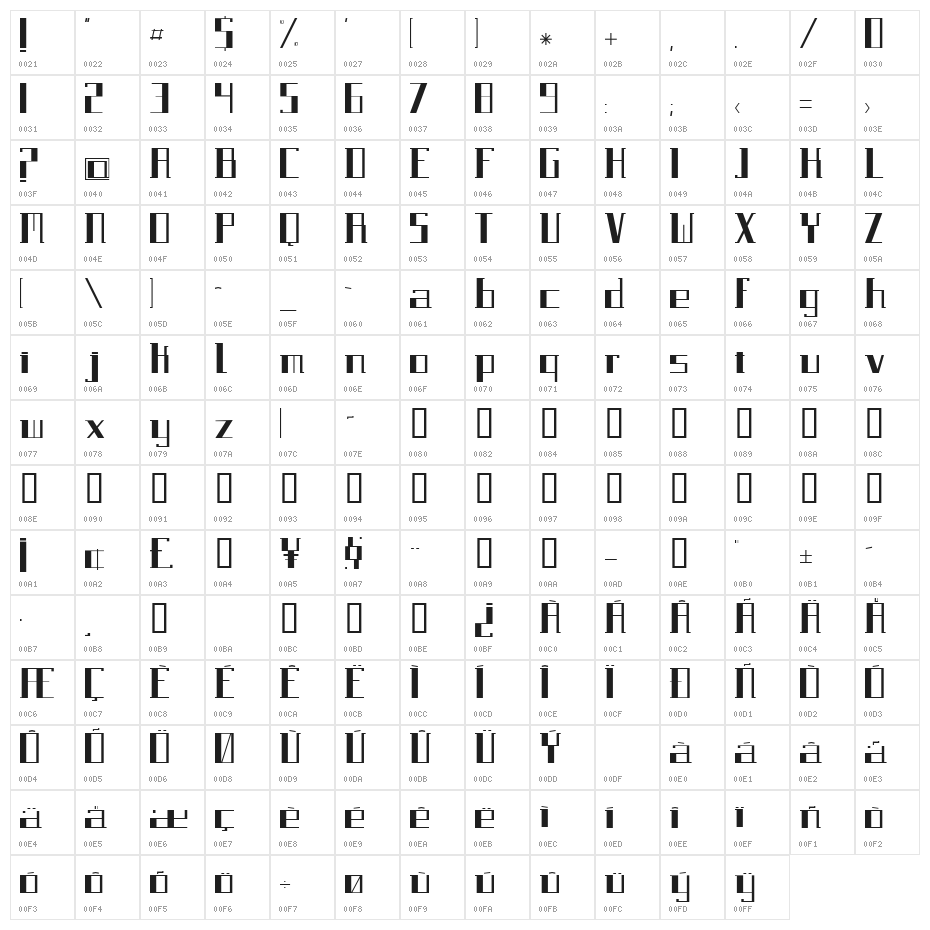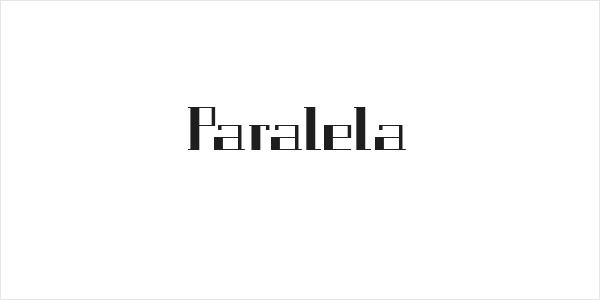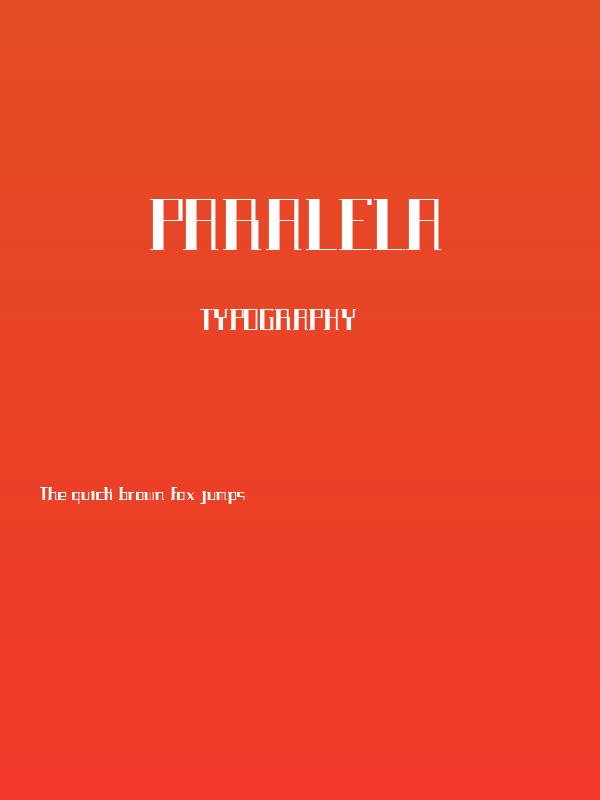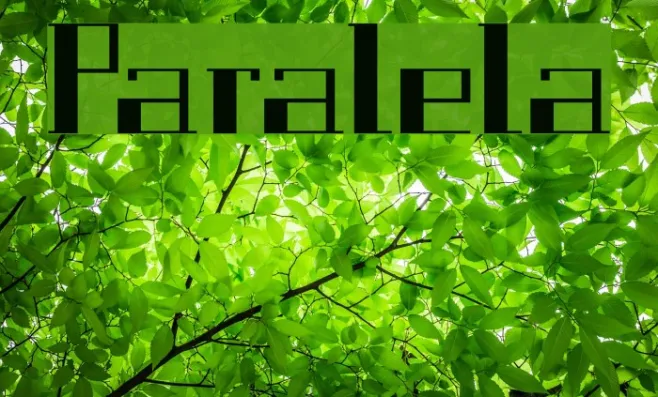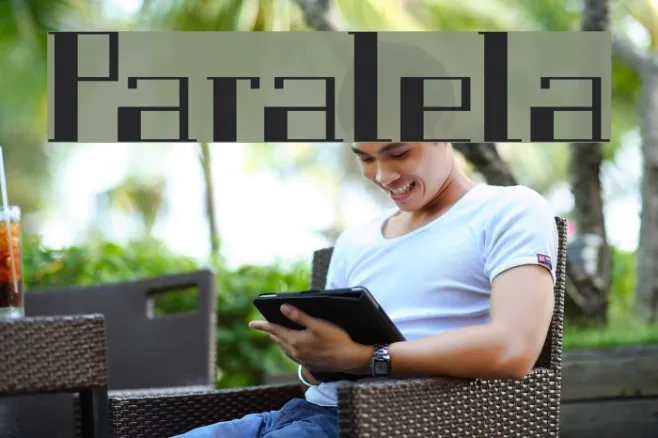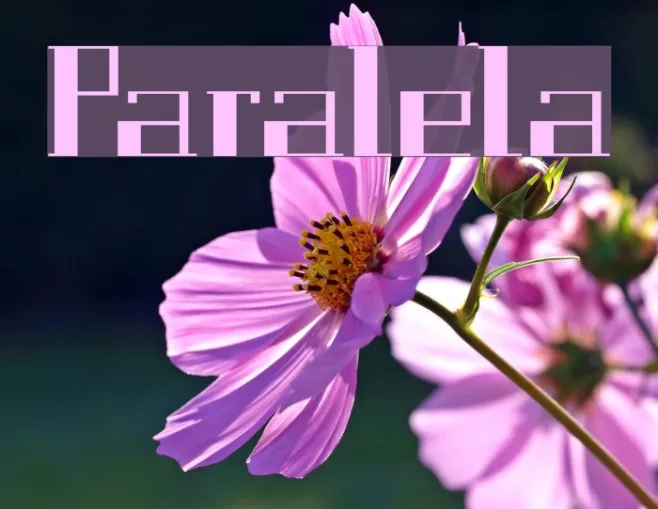
Paralela Font
Paralela Description
This font features a modern and geometric design with a strong emphasis on vertical and horizontal lines. The uppercase letters are bold and angular, creating a striking and futuristic appearance. The lowercase letters maintain a similar structure but with a slightly more refined and narrow form. Numbers are consistent with the overall style, offering a bold and clear presentation. Special characters are uniquely designed to match the font's geometric aesthetic, ensuring a cohesive look across all elements. The font's sharp edges and clean lines make it ideal for contemporary and tech-oriented projects.